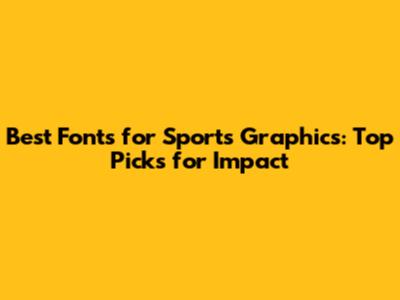
- Bebas Neue: A clean and modern sans-serif that's highly versatile.
- Montserrat: A geometric sans-serif that offers excellent readability.
- Roboto: A friendly and modern sans-serif suitable for various applications.
- Rockwell: A strong and sturdy slab serif that commands attention.
- Impact: A bold and condensed display font perfect for headlines.
- Varsity: A classic collegiate font that evokes team spirit.
- Agency FB: A narrow and impactful font ideal for sports tickers and banners.
- Oswald: A reworked classic typeface suited for digital screens.
- Raleway: An elegant sans-serif with a wide range of weights.
- Anton: An ultra-bold sans-serif that makes a powerful statement.
Creating eye-catching sports graphics requires more than just great designs; it demands the perfect typography. Choosing the right font can elevate your visuals, making them more engaging and impactful. In this article, we'll dive into some of the best fonts specifically tailored for sports graphics. Whether you're designing for team logos, game day posters, or social media content, these fonts will help you score big with your audience.
Why Font Choice Matters in Sports Graphics
Font choice is paramount in sports graphics because it directly influences how the message is perceived. The right font can evoke feelings of energy, strength, and excitement—all crucial elements in the world of sports. A well-chosen font can capture the spirit of the team, the intensity of the game, and the passion of the fans. On the flip side, an inappropriate font can make your design look amateurish and fail to connect with your target audience. Therefore, understanding the nuances of typography is essential for any designer working in the sports industry. Considering factors such as readability, style, and emotional impact will ensure your graphics hit the mark every time. Moreover, consistency in font usage across all branding materials reinforces brand identity and recognition. So, investing time in selecting the perfect fonts is an investment in the overall success and impact of your sports graphics.
Top Font Categories for Sports Graphics
When it comes to sports graphics, certain font categories tend to perform exceptionally well. Bold sans-serif fonts are a classic choice, offering a clean, modern look that conveys strength and confidence. These fonts are highly readable and work well in various applications, from large headlines to smaller text blocks. Slab serif fonts are another excellent option, providing a sturdy and impactful feel. Their thick serifs add a touch of tradition while still maintaining a contemporary edge. For a more dynamic and energetic vibe, consider using display fonts, which are designed to grab attention with their unique shapes and styles. These fonts are perfect for logos, posters, and other eye-catching designs. Additionally, script fonts can add a touch of flair and personality, especially when used sparingly for accent text or decorative elements. By understanding the strengths of each font category, you can make informed decisions that enhance the overall impact of your sports graphics. Remember to balance aesthetics with readability to ensure your message is effectively communicated.
Bold Sans-Serif Fonts
Bold sans-serif fonts are a staple in sports graphics due to their clean lines and excellent readability. These fonts project a sense of strength, modernity, and confidence, making them ideal for conveying the dynamic nature of sports. Their simplicity ensures they remain legible even at smaller sizes, making them versatile for various applications, from headlines to body text. Notable examples include Bebas Neue, known for its tall and narrow structure, which commands attention and saves space; Montserrat, a geometric sans-serif that offers a balanced and contemporary feel; and Roboto, a highly legible font family with a mechanical skeleton and friendly curves. These fonts work exceptionally well for team logos, jerseys, and promotional materials where clarity and impact are essential. When selecting a bold sans-serif font, consider the overall tone you want to convey – some are more aggressive and energetic, while others are more refined and professional. Pairing them with contrasting fonts can create visual interest and hierarchy in your designs. Ultimately, the goal is to choose a font that not only looks good but also effectively communicates the message and embodies the spirit of the team or event.
Slab Serif Fonts
Slab serif fonts bring a robust and impactful presence to sports graphics, characterized by their thick, block-like serifs. These fonts exude a sense of strength, stability, and tradition, making them a great choice for projects that aim to convey reliability and power. The boldness of slab serifs ensures they stand out, making them ideal for headlines, logos, and designs where you need to grab attention. Popular slab serif fonts include Rockwell, a geometric slab serif that offers a modern and industrial feel; Courier New, known for its typewriter-style appearance, which can add a vintage touch; and Arvo, a versatile option with a slightly rounded design that enhances readability. Slab serifs are particularly effective for creating a sense of heritage and trustworthiness, which can be beneficial for established teams or organizations. When using slab serif fonts, consider the overall design context – they pair well with sans-serif fonts to create a balanced and visually appealing contrast. However, avoid overusing them, as their strong presence can become overwhelming if not used judiciously. The key is to leverage their bold characteristics to make a statement while maintaining a clean and professional aesthetic.
Display Fonts
Display fonts are designed to be eye-catching and attention-grabbing, making them perfect for sports graphics that need to stand out. These fonts often feature unique shapes, exaggerated features, and creative styles that set them apart from more traditional typefaces. Display fonts are ideal for headlines, logos, posters, and other designs where visual impact is paramount. When selecting a display font, consider the overall tone and message you want to convey – some are playful and energetic, while others are bold and aggressive. Examples of popular display fonts for sports graphics include Impact, a condensed and powerful font that lives up to its name; Varsity, a classic collegiate font that evokes a sense of tradition and team spirit; and Komika Axis, a quirky and dynamic font with a hand-drawn feel. It's important to use display fonts sparingly and strategically, as they can be overwhelming if overused. Pair them with simpler, more legible fonts for body text to ensure readability and balance. The goal is to use display fonts to create a focal point and add personality to your designs, while still maintaining a cohesive and professional look.
Specific Font Recommendations for Sports Graphics
To help you narrow down your choices, here are some specific font recommendations that work exceptionally well in sports graphics:
These fonts have proven their effectiveness in various sports-related designs and can help you create visually appealing and impactful graphics. Experiment with different combinations and styles to find the perfect fit for your project.
How to Pair Fonts Effectively
Pairing fonts effectively is a crucial skill for any designer, especially when working on sports graphics. The right font combination can enhance readability, create visual interest, and reinforce the overall message of your design. A general rule of thumb is to combine a bold, attention-grabbing font for headlines with a simpler, more legible font for body text. For example, you could pair Impact with Roboto, or Bebas Neue with Open Sans. Another approach is to contrast font categories, such as combining a slab serif like Rockwell with a sans-serif like Montserrat. This creates a visual hierarchy and prevents the design from looking monotonous. When pairing fonts, consider their visual weight, x-height, and overall style. Fonts with similar characteristics can create a harmonious and balanced look, while contrasting fonts can add a dynamic and energetic feel. It's also important to limit the number of fonts you use – typically, two or three fonts are sufficient for most designs. Overusing fonts can create a cluttered and confusing appearance. By carefully selecting and pairing fonts, you can create visually stunning and effective sports graphics that capture the attention of your audience.
Tools and Resources for Finding Sports Fonts
Finding the perfect sports font can be a time-consuming task, but fortunately, there are numerous tools and resources available to streamline the process. Font websites like Google Fonts, Adobe Fonts, and MyFonts offer vast libraries of typefaces, with advanced search filters that allow you to narrow down your options based on style, weight, and other criteria. Design platforms such as Canva and Adobe Creative Cloud Express also provide a wide selection of fonts specifically curated for sports graphics. These platforms often include pre-designed templates that can serve as inspiration and starting points for your projects. Font identification tools like WhatTheFont and Font Squirrel Matcherator can help you identify fonts from images, which is useful if you come across a typeface you like but don't know its name. Additionally, many design blogs and forums offer curated lists and recommendations of the best fonts for sports graphics, providing valuable insights and inspiration from industry experts. By leveraging these tools and resources, you can efficiently discover and select the perfect fonts to elevate your sports graphics and create visually compelling designs.